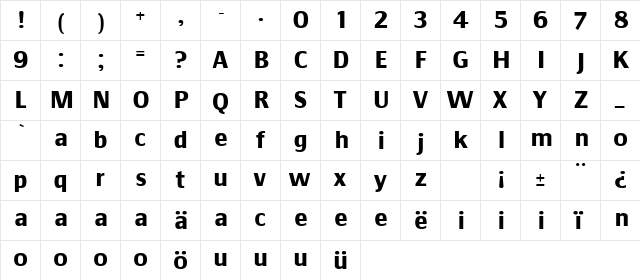
Communist SansBold
Design Context for Communist Typeface
Communist takes a measured approach to typography — its balanced proportions and neutral character make it a reliable workhorse for both digital and print work. The heavy weight commands attention and anchors typographic hierarchies.